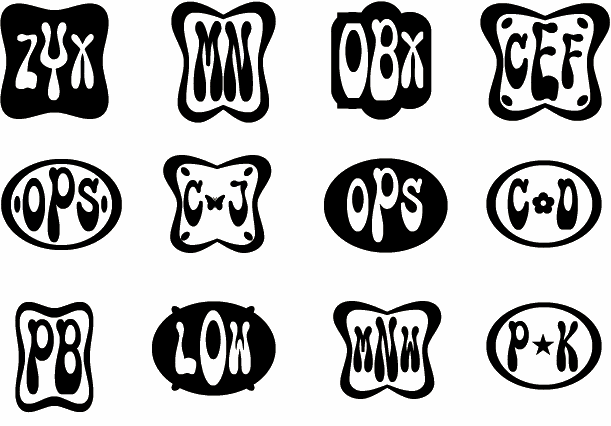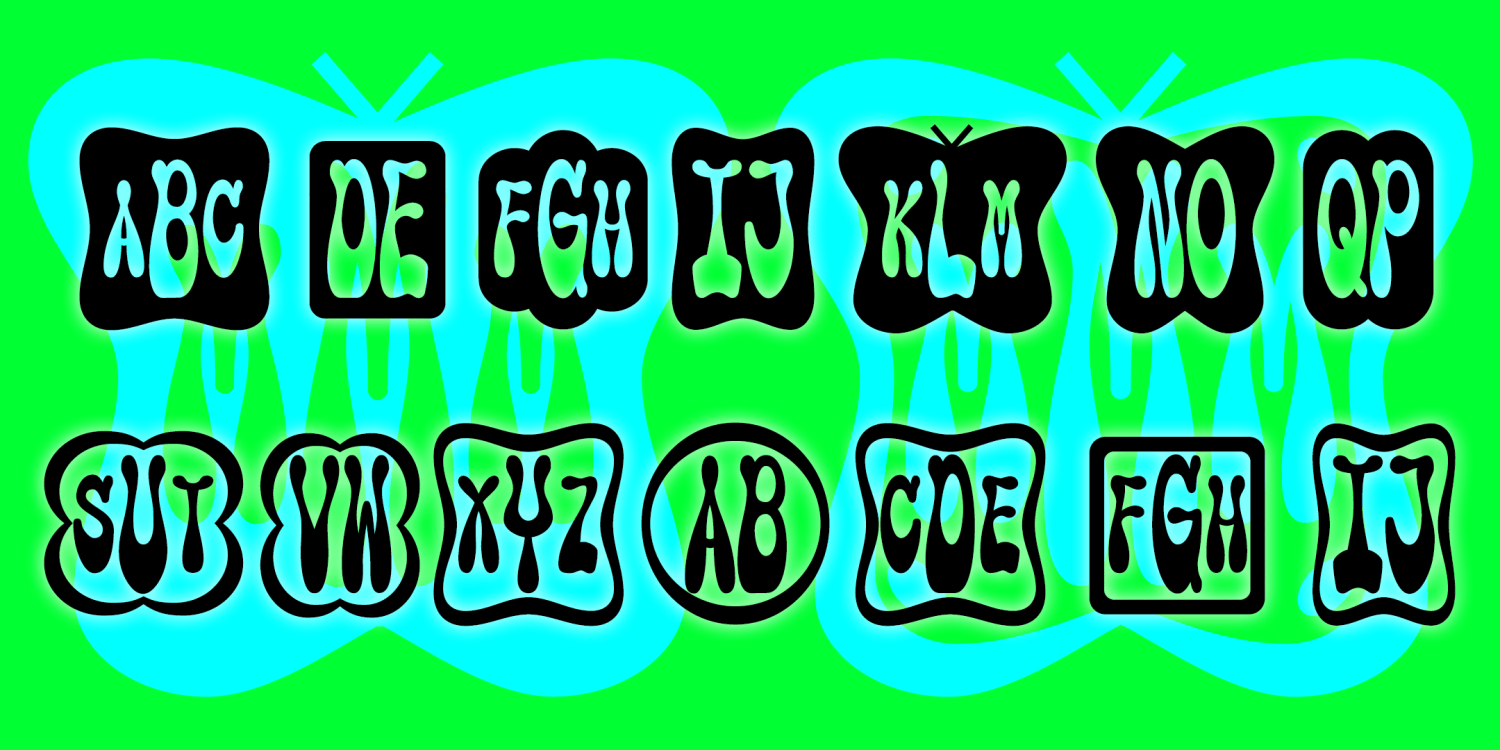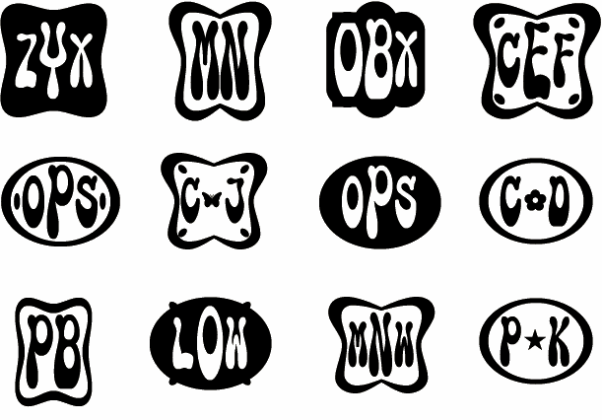
MOD MONOGRAMS is a set of 2 fonts that let you make custom 1-, 2- or 3-letter monograms in a groovy 60s style, with black or white backgrounds and a choice of decorative borders and other elements.